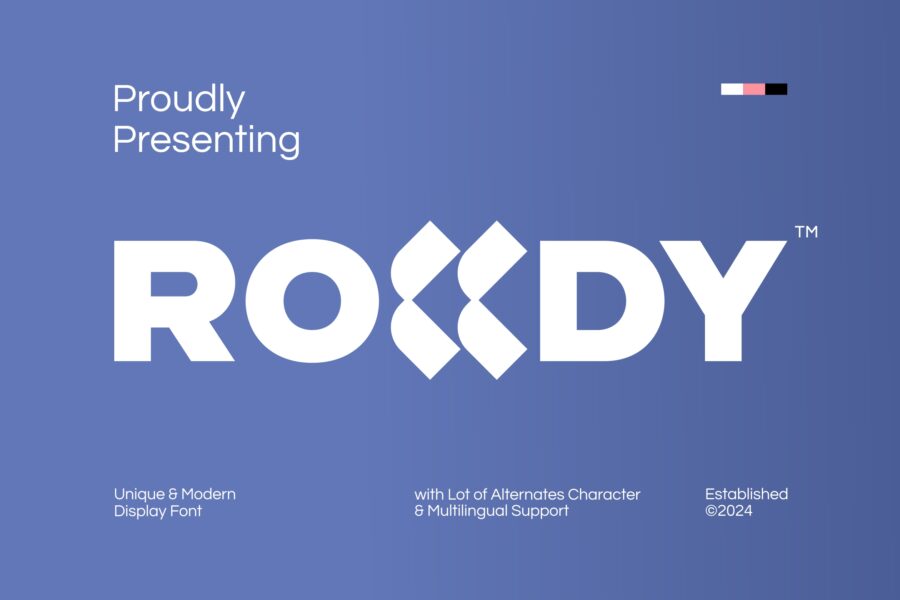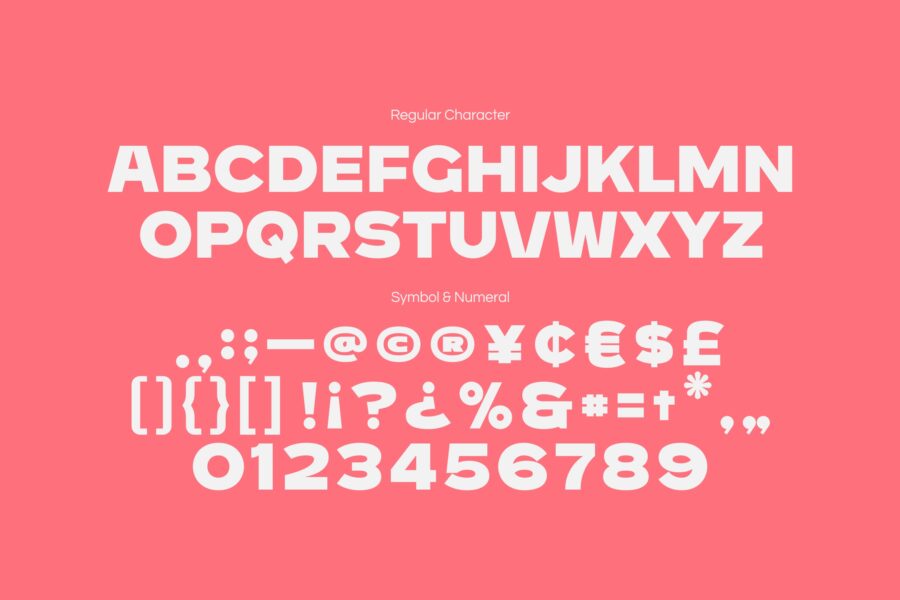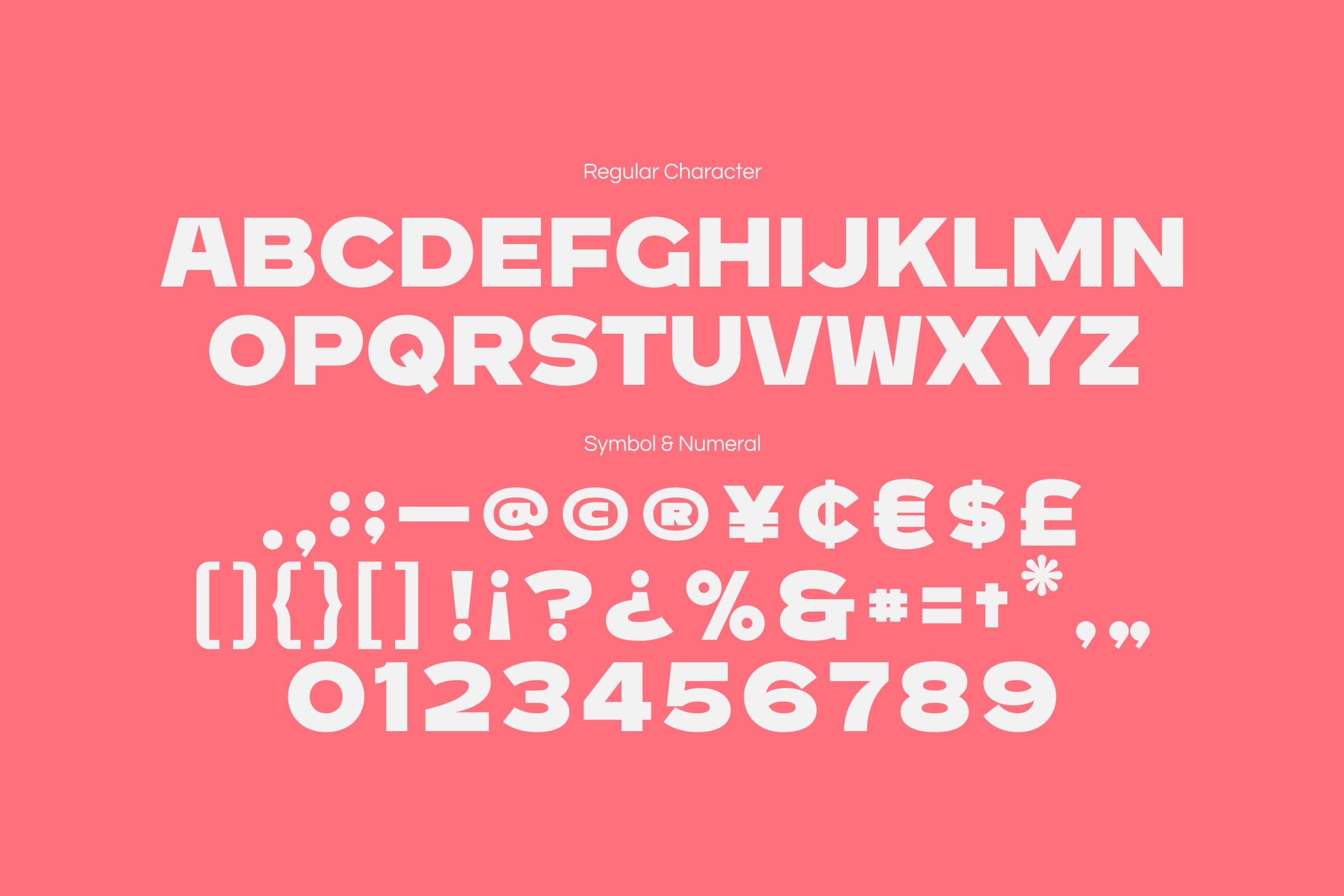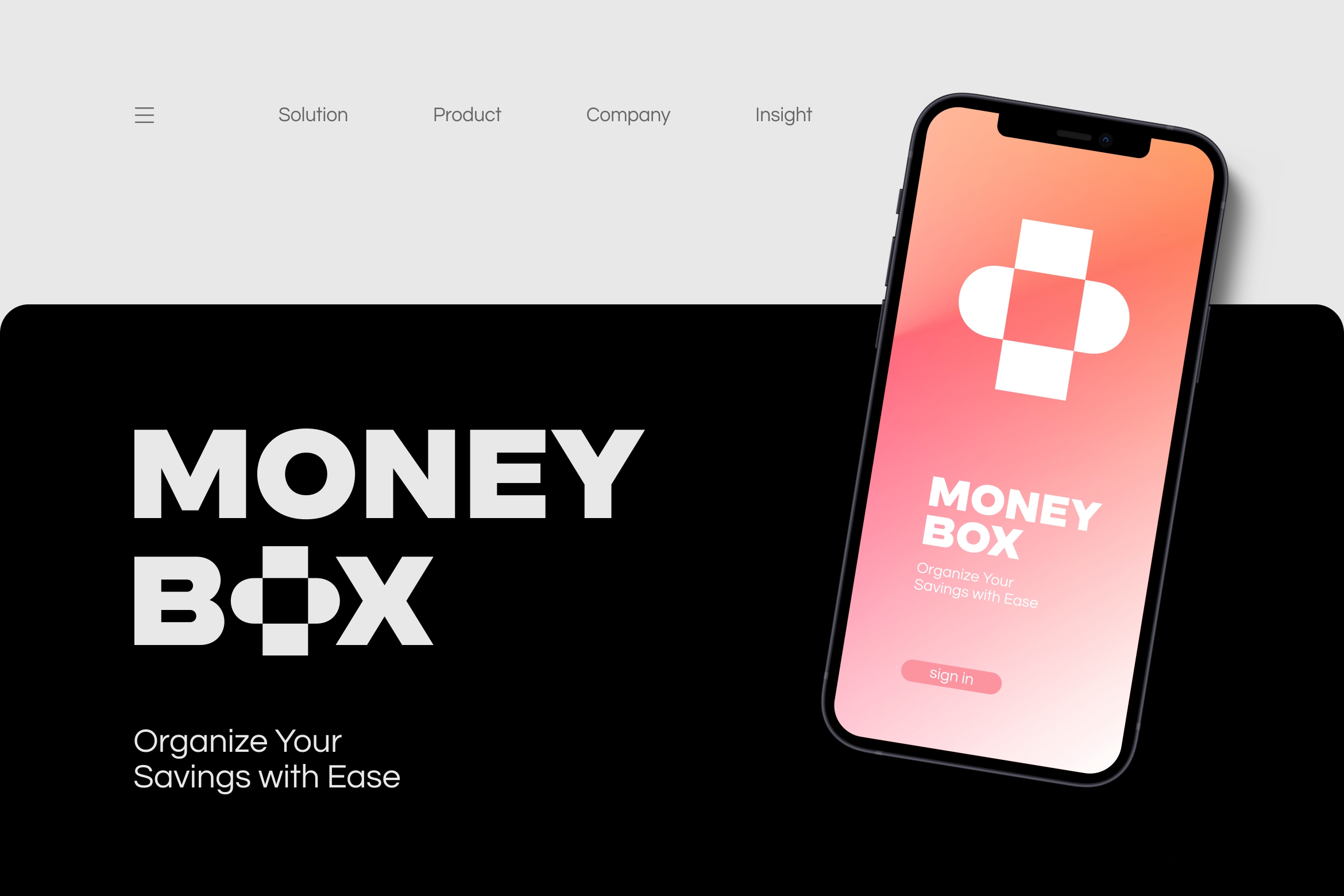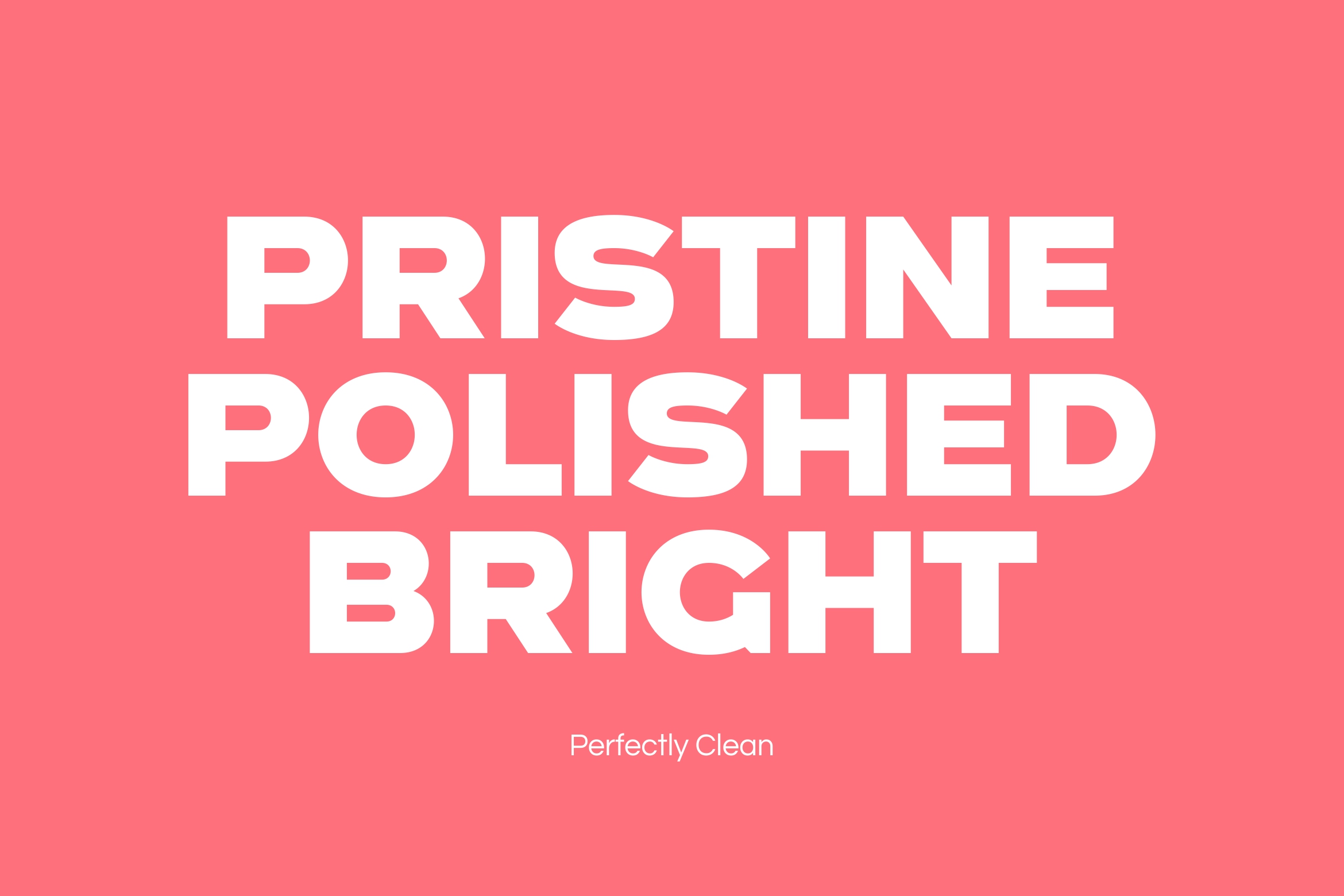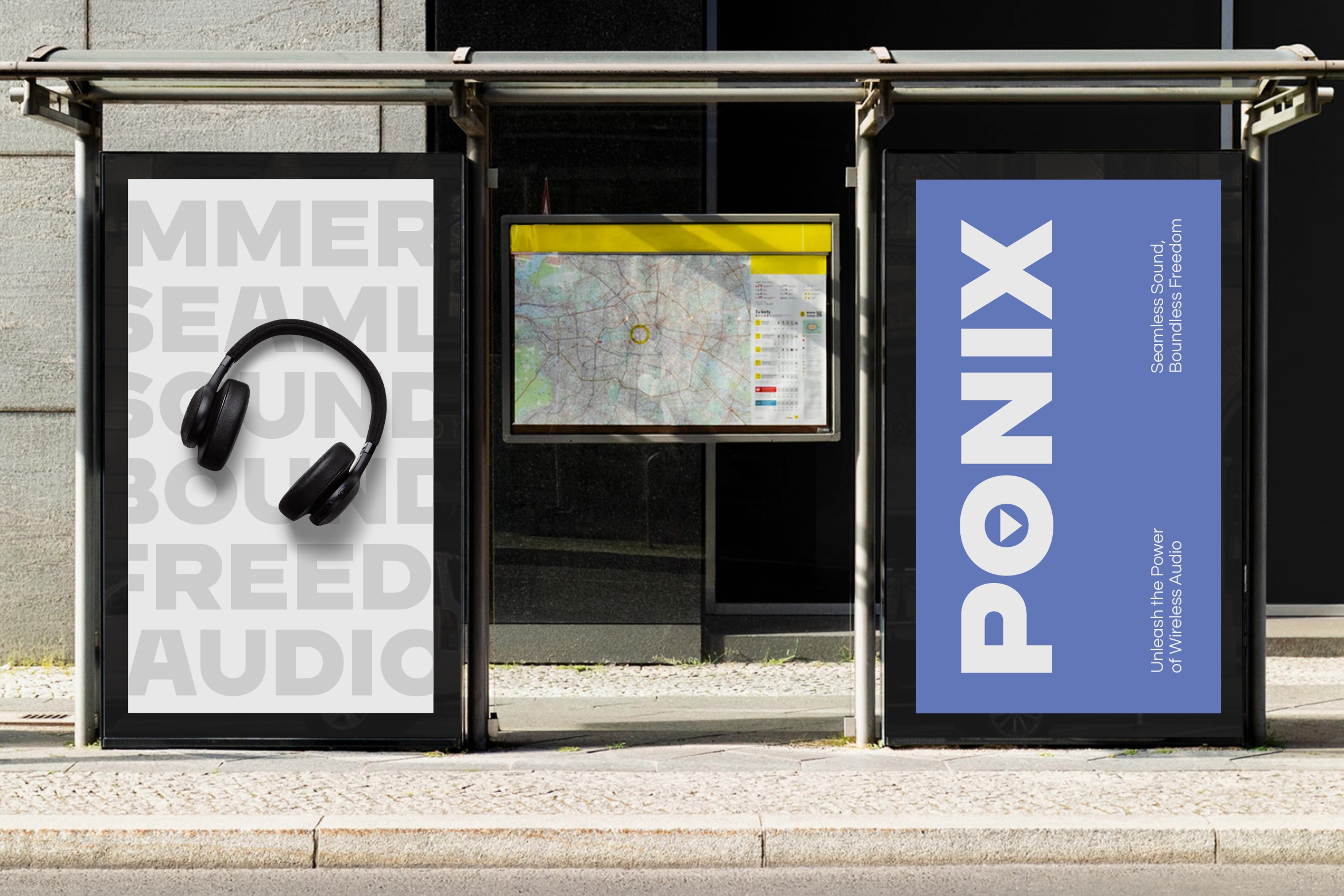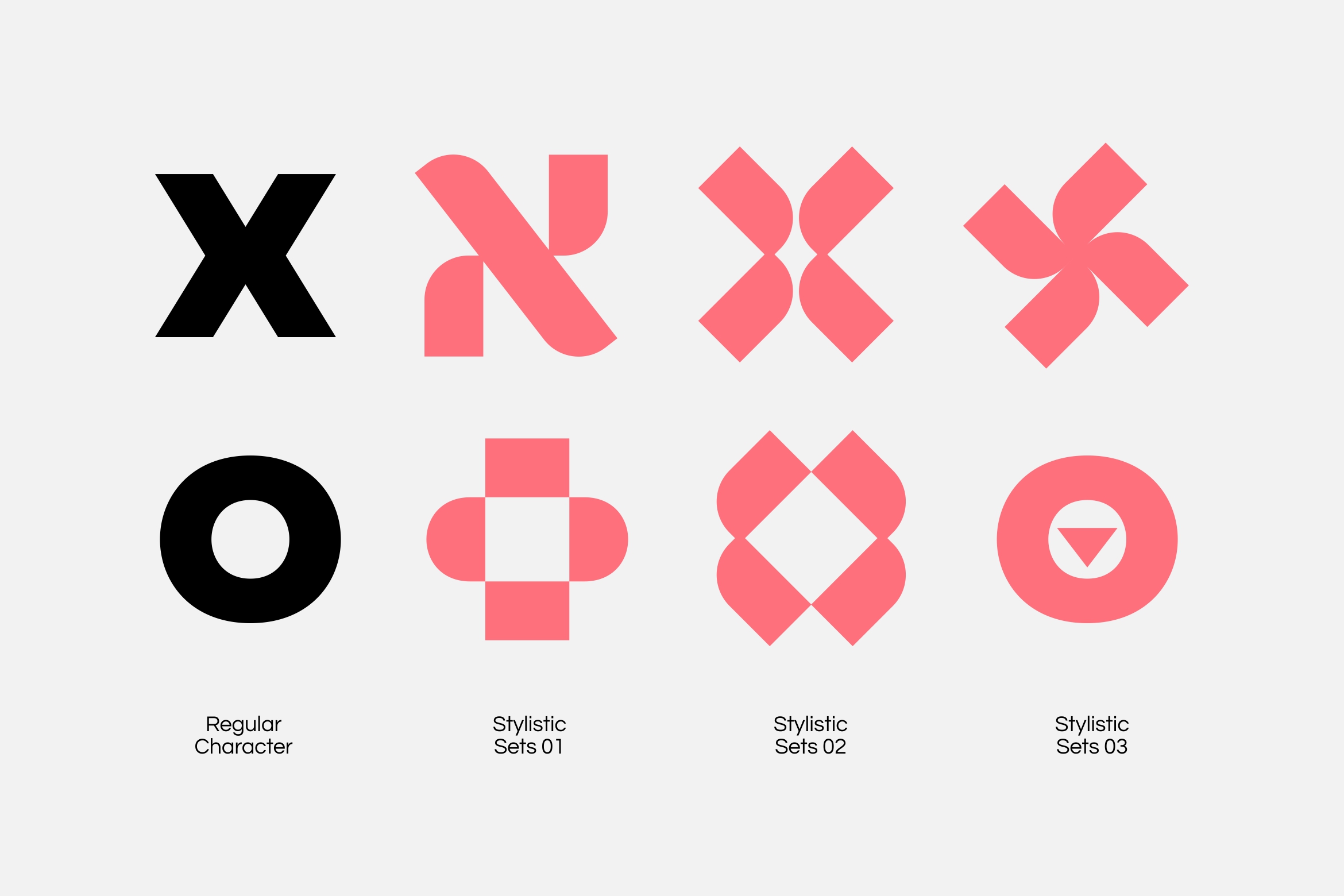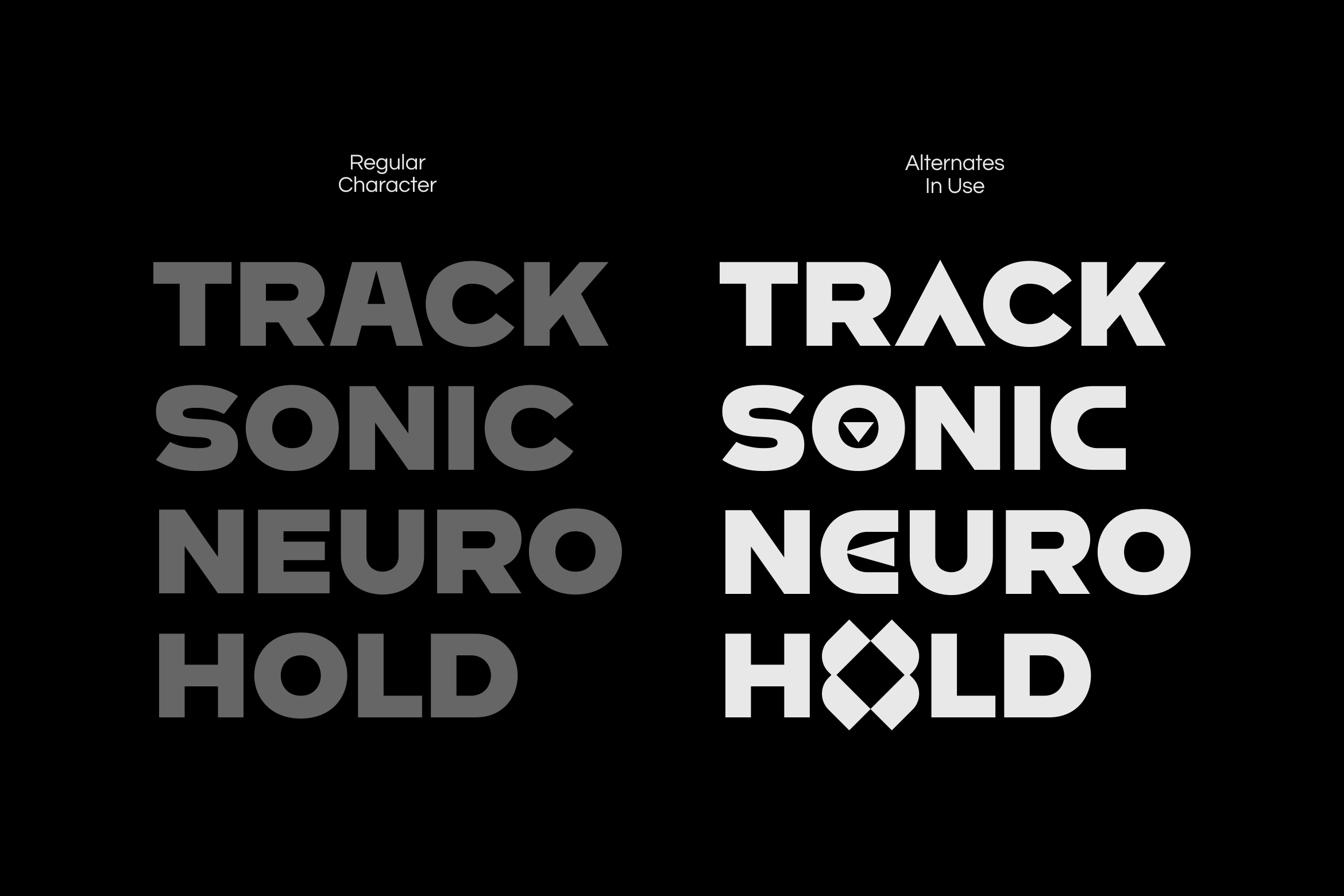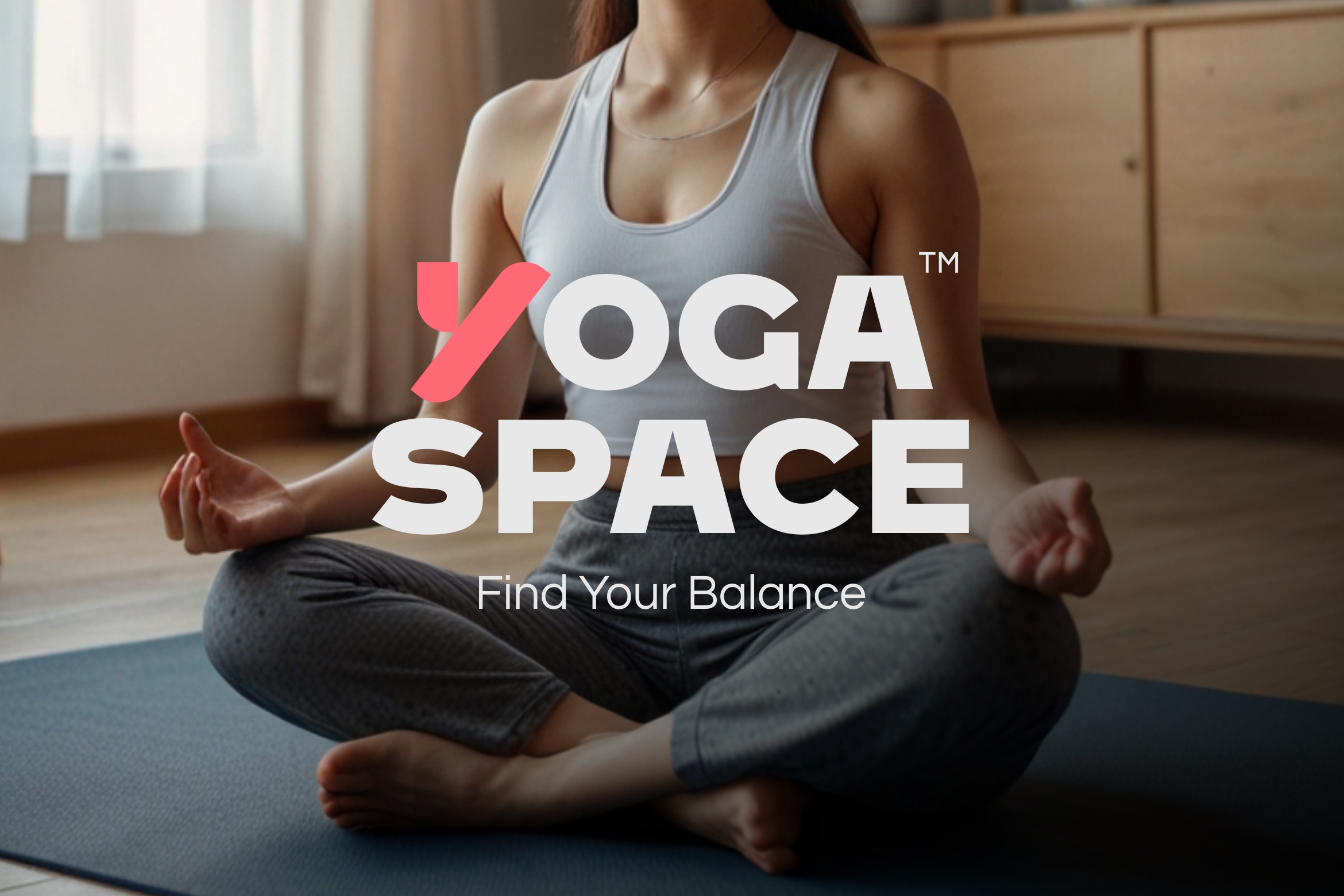
Rokdy is a clean, modern display font that blends simplicity with striking originality. Its bold, geometric forms offer clarity and versatility, making it ideal for branding, user interfaces, headlines, and tech-forward applications. The default set features high legibility, with evenly balanced spacing and sleek construction—making it both functional and visually impactful.
What makes Rokdy truly stand out is its extensive collection of alternate characters and stylistic sets. From abstract, icon-like alternates to modular geometric shapes, this font empowers designers with creative freedom and a futuristic aesthetic. Combined with multilingual support, Rokdy is an excellent choice for projects seeking bold identity, minimalist tone, or modern tech appeal.